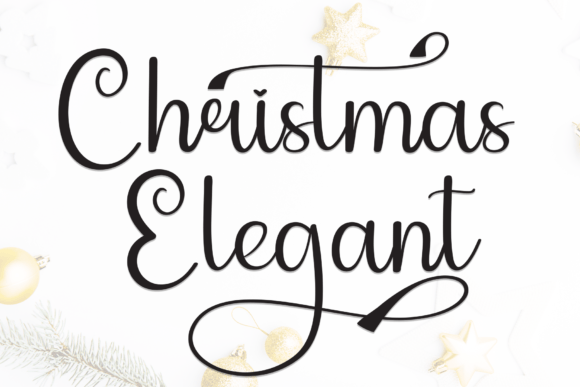
Christmas Elegant Font: The Perfect Choice for Your Holiday Designs
As the holiday season approaches, designers and crafters are on the lookout for the perfect font to add a touch of elegance and festivity to their Christmas designs. If you’re looking for a font that exudes warmth, friendliness, and a dash of playfulness, look no further than Christmas Elegant Font. In this article, we’ll dive into the world of Christmas Elegant Font, exploring its features, benefits, and uses, as well as provide tips on how to make the most of this beautiful font.
What is Christmas Elegant Font?
Christmas Elegant Font is a sweet and friendly handwritten display font that is perfect for adding a touch of whimsy and fun to your designs. With its elegant and cursive style, this font is ideal for creating eye-catching headings, titles, and text for a variety of projects, from wedding invitations and cards to holiday-themed posters and social media graphics.
Key Features of Christmas Elegant Font
- Handwritten style: Christmas Elegant Font boasts a beautiful, handwritten style that adds a personal touch to your designs.
- Elegant and cursive: The font’s elegant and cursive style makes it perfect for creating sophisticated and eye-catching headings and titles.
- Cute and fun: With its playful and whimsical feel, Christmas Elegant Font is ideal for adding a touch of fun and personality to your designs.
- Versatile: This font is versatile and can be used for a wide range of projects, from wedding invitations and cards to holiday-themed posters and social media graphics.
Benefits of Using Christmas Elegant Font
So, why choose Christmas Elegant Font for your holiday designs? Here are just a few benefits of using this beautiful font:
- Adds a personal touch: With its handwritten style, Christmas Elegant Font adds a personal touch to your designs, making them feel more unique and special.
- Creates a festive atmosphere: The font’s elegant and cursive style, combined with its playful and whimsical feel, creates a festive atmosphere that’s perfect for the holiday season.
- Easy to read: Despite its elegant and cursive style, Christmas Elegant Font is easy to read, making it perfect for use in body text as well as headings and titles.
Uses for Christmas Elegant Font
So, what can you use Christmas Elegant Font for? Here are just a few ideas to get you started:
- Wedding invitations: With its elegant and cursive style, Christmas Elegant Font is perfect for creating beautiful and sophisticated wedding invitations.
- Holiday cards: Add a touch of festivity and fun to your holiday cards with Christmas Elegant Font.
- Posters and flyers: Use Christmas Elegant Font to create eye-catching posters and flyers for holiday events, sales, and promotions.
- Social media graphics: Add a touch of personality and whimsy to your social media graphics with Christmas Elegant Font.
Tips for Using Christmas Elegant Font
Here are a few tips for getting the most out of Christmas Elegant Font:
- Use it sparingly: While Christmas Elegant Font is beautiful and elegant, it can be overwhelming if used too much. Use it sparingly to add a touch of sophistication and whimsy to your designs.
- Pair it with a simple font: Pair Christmas Elegant Font with a simple font, such as Arial or Helvetica, to create a striking contrast and add visual interest to your designs.
- Experiment with colors: Don’t be afraid to experiment with different colors and color combinations to add a touch of festivity and fun to your designs.
- Have fun: Most importantly, have fun with Christmas Elegant Font! Experiment with different styles, colors, and design elements to create unique and eye-catching designs.
In conclusion, Christmas Elegant Font is a beautiful and versatile font that’s perfect for adding a touch of elegance and whimsy to your holiday designs. With its handwritten style, elegant and cursive feel, and playful and whimsical personality, this font is ideal for creating eye-catching headings, titles, and text for a wide range of projects. Whether you’re designing wedding invitations, holiday cards, posters, or social media graphics, Christmas Elegant Font is sure to add a touch of festivity and fun to your designs.